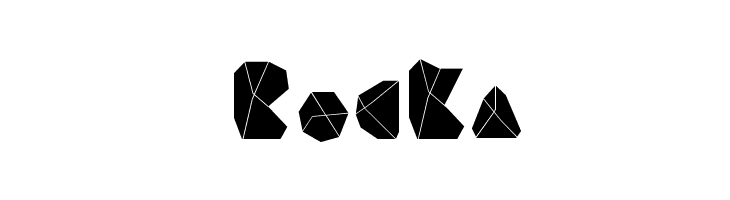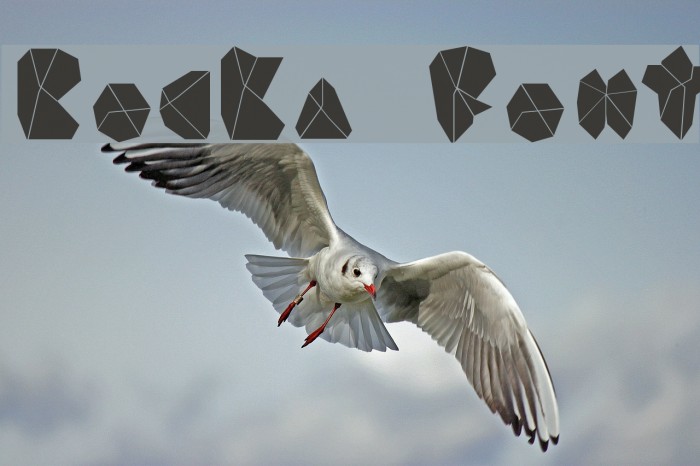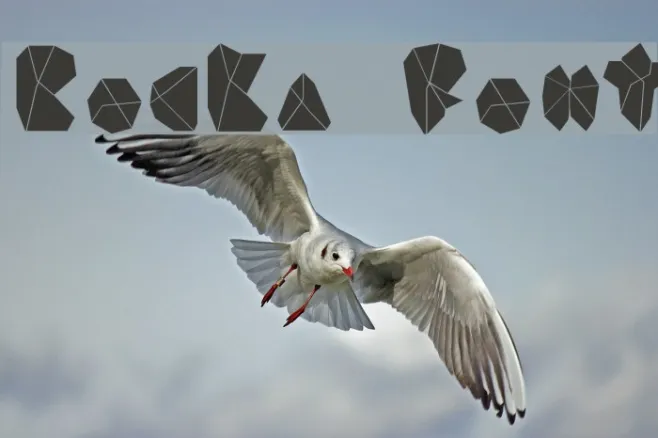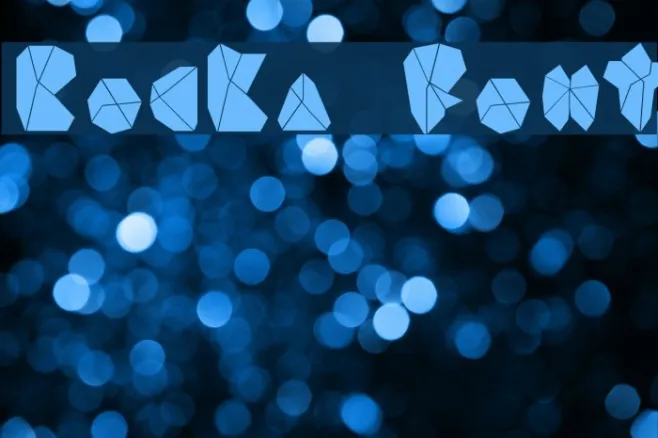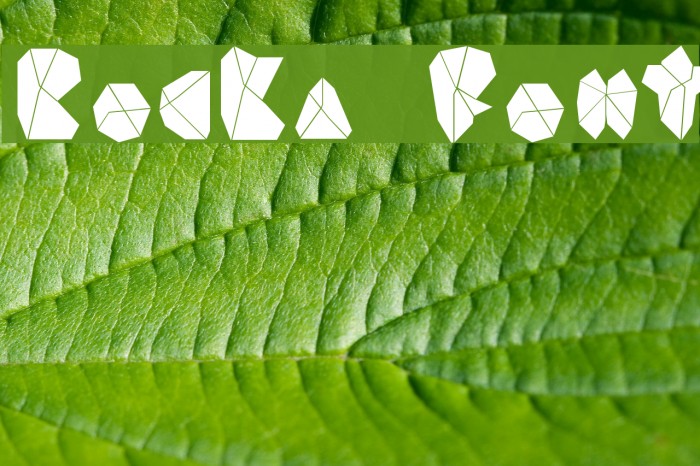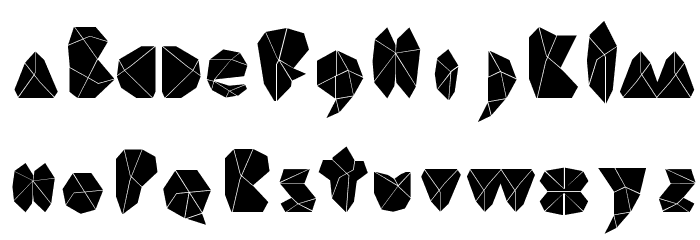
ROCKA Font
This font features a bold, geometric design with a distinct angular style. Each character is composed of sharp, intersecting lines that create a fractured, crystalline appearance. The uppercase and lowercase letters maintain a consistent aesthetic, emphasizing the font's unique, edgy look. The numbers and special characters follow the same design principles, ensuring uniformity across all glyphs. This font's striking visual impact makes it ideal for projects that require a modern and unconventional typeface.
A bold, geometric font with a sharp, angular design.
• Proposed Projects: Ideal for album covers, posters, branding, and any project seeking a modern, edgy aesthetic.
• Category: Decorative/Display
• Bold: Yes
• Italic: No
• Weight: Bold
• Width: Normal
• Character Spacing: Normal
• Contrast: High
• Overall Style: Modern
• Use Case: Headlines, Logos